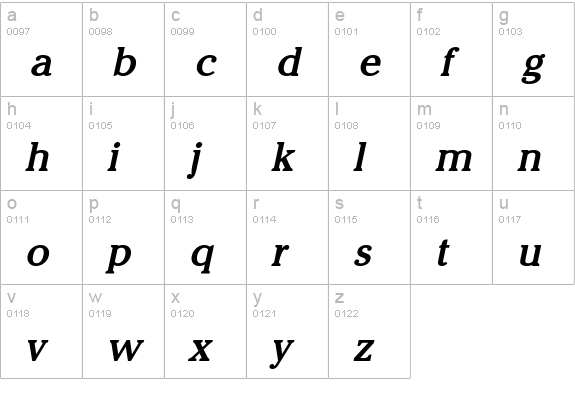
Chelsey Bold Italic is a strong, high-contrast, italic variant in the Chelsey typeface family \xE2\x80\x94 well suited to headlines, attention-grabbing titles, and strong calls-to-action.
Chelsey Bold Italic font exudes a sense of sophistication and modernity with its striking bold weight and elegant italic style. This versatile typeface is perfect for creating eye-catching headlines, logos, and branding materials. The combination of boldness and italic slant adds a dynamic and unique touch to any design project. What sets Chelsey Bold Italic font apart is its seamless blend of tradition and contemporary design elements, making it a go-to choice for designers looking to make a bold statement. Whether you're working on a website, poster, or packaging design, this font will elevate your project to new heights. The best part? Chelsey Bold Italic font is completely free to download at FontsMarket.com. So why wait? Add this stunning typeface to your collection today and let your creativity soar!